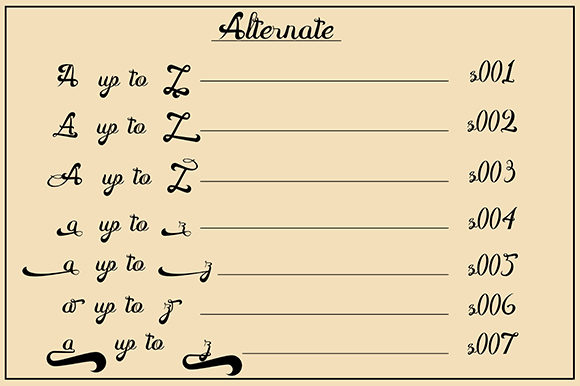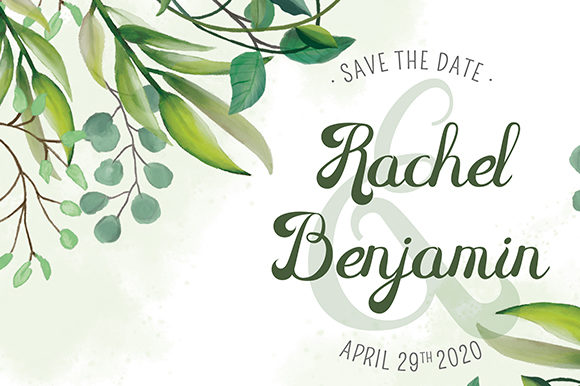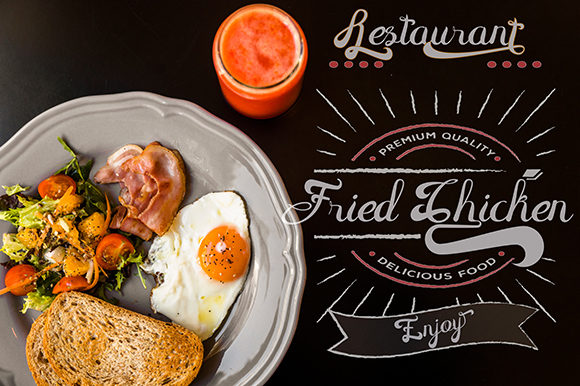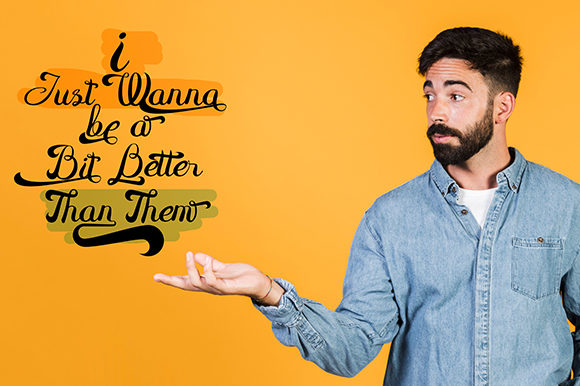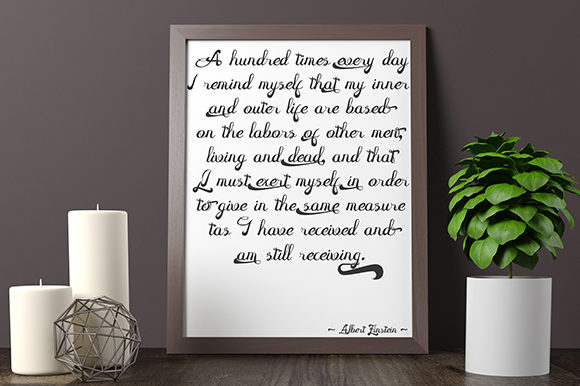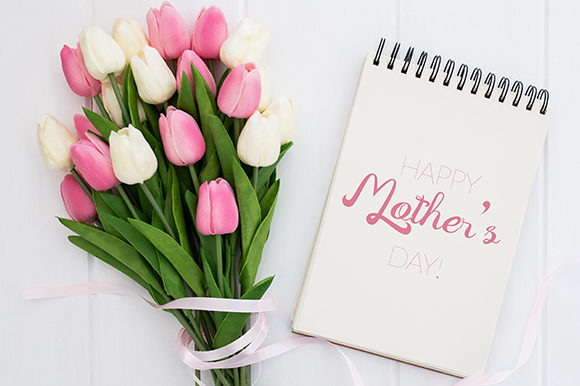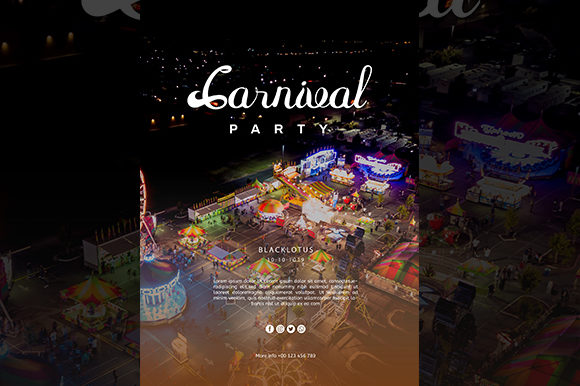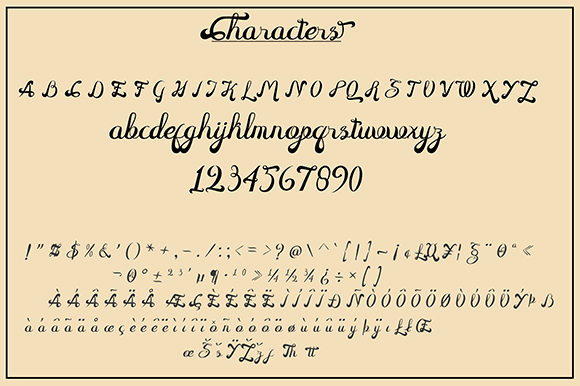
HomeScript FontsThe Falcon Font Script Fonts The Falcon Font FacebookXPinterestWhatsApp The Falcon Font Poster 2 The Falcon Font Poster 3 The Falcon Font Poster 4 The Falcon Font Poster 5 The Falcon Font Poster 6 The Falcon Font Poster 7 The Falcon Font Poster 8 The Falcon Font Poster 9 The Falcon Font Poster 10 About The Falcon Font The Falcon is a bold and unique script with amazing swashes. DOWNLOAD ON CREATIVE FABRICAThis font is sold and delivered by Creative Fabrica. Font Canyon may earn a commission if you buy through this link. People also explored Spooky Grave Font Rosemary Handwriting Font Ailish Cherry Cordial Font Brand Type Winter Snow Font Photocorp Font Like Zebra Font Chic Italic Font 341 0 TagsThe Falcon Font Previous articleMiss Catlyne FontNext articleOther Grettha Font LEAVE A REPLY Cancel reply Comment: Please enter your comment! Name:* Please enter your name here Email:* You have entered an incorrect email address! Please enter your email address here Website: Save my name, email, and website in this browser for the next time I comment. Personal Use Free Winter Soldier Personal Use Free Read more about this font Alista Font Personal Use Free Read more about this font Screengem Personal Use Free Read more about this font Fifteenth Century Personal Use Free Read more about this font BLOG The 10 Best Handwriting Fonts to Add Personality to Your Designs 10 of the Best Handwriting Fonts for Adding Personality to Your Designs There will undoubtedly be no other better choice than handwriting fonts to give... How to Install and Use Fonts on Windows, macOS, and Web Projects Free vs Paid Fonts: Why Investing in Premium Fonts Is Worth It Top 10 Handwritten Fonts That Elevate Your Designs